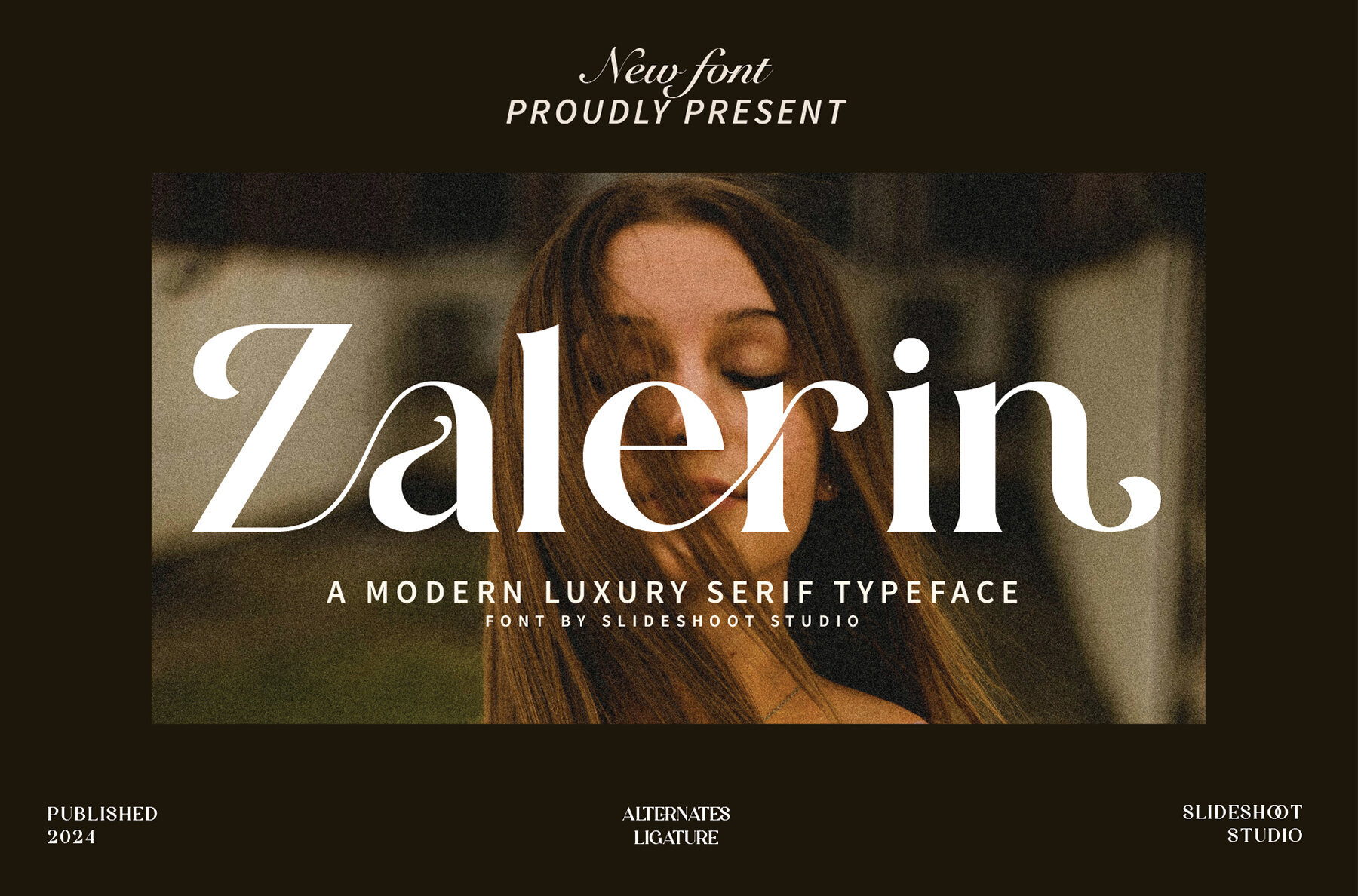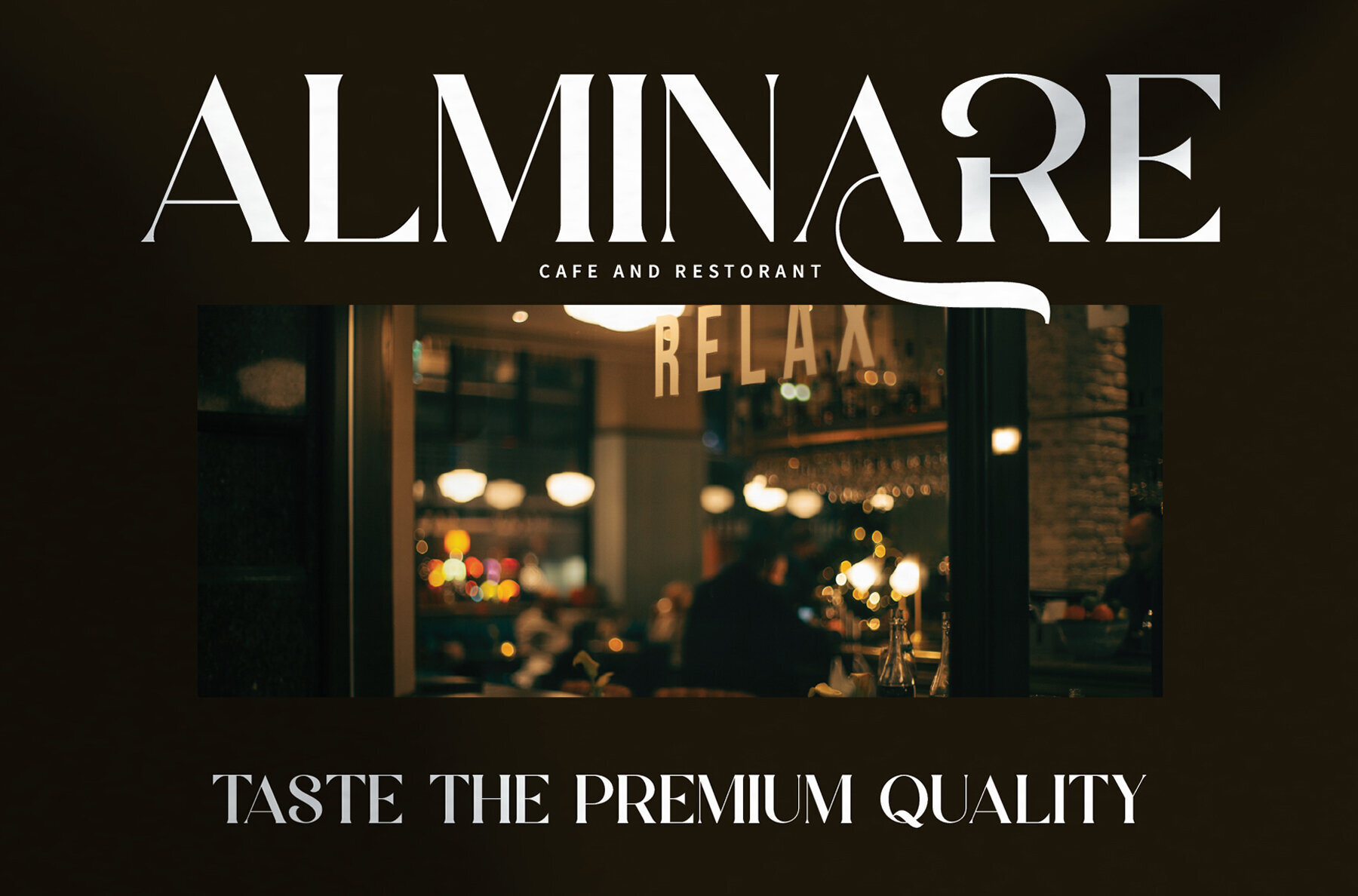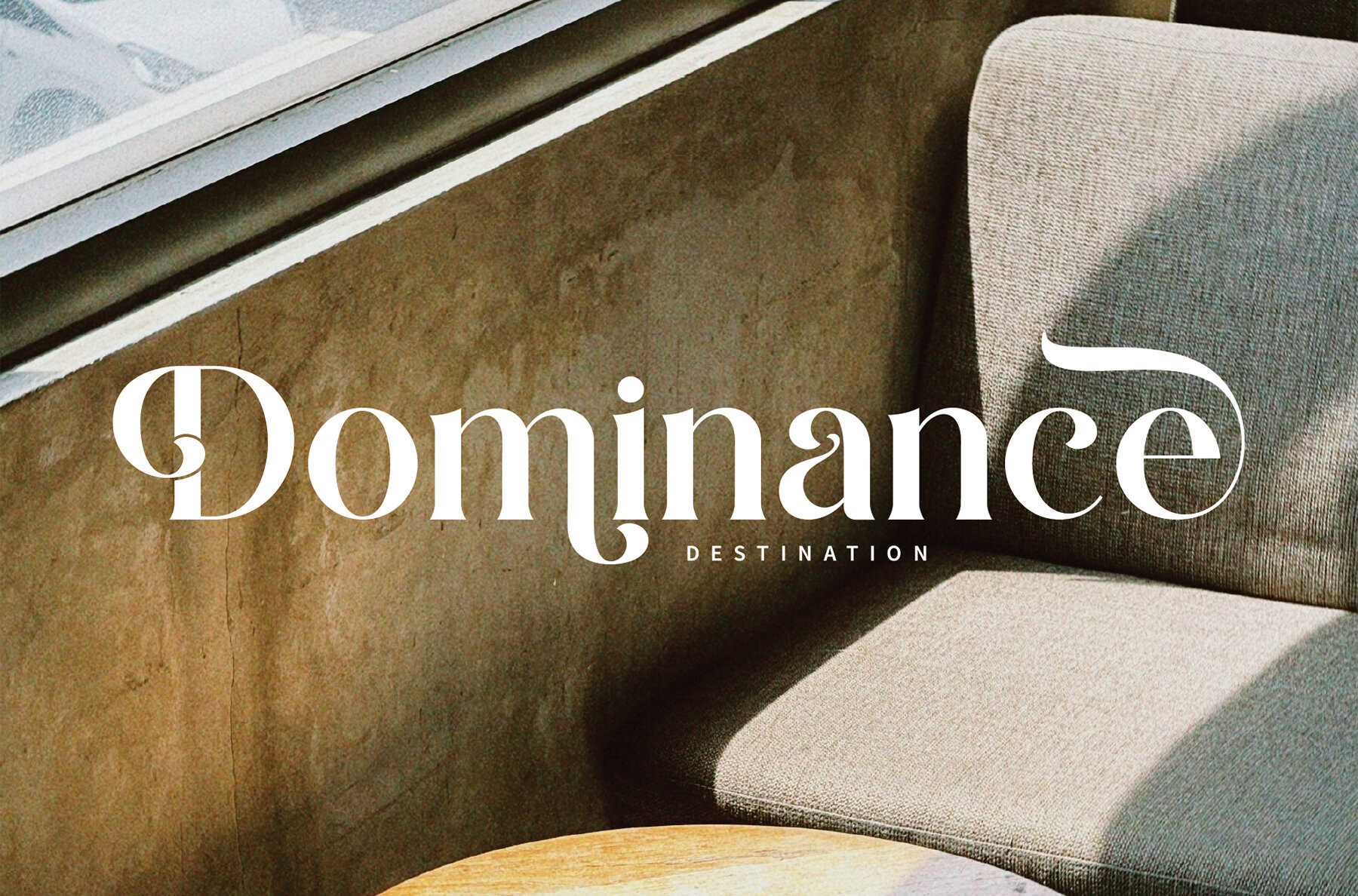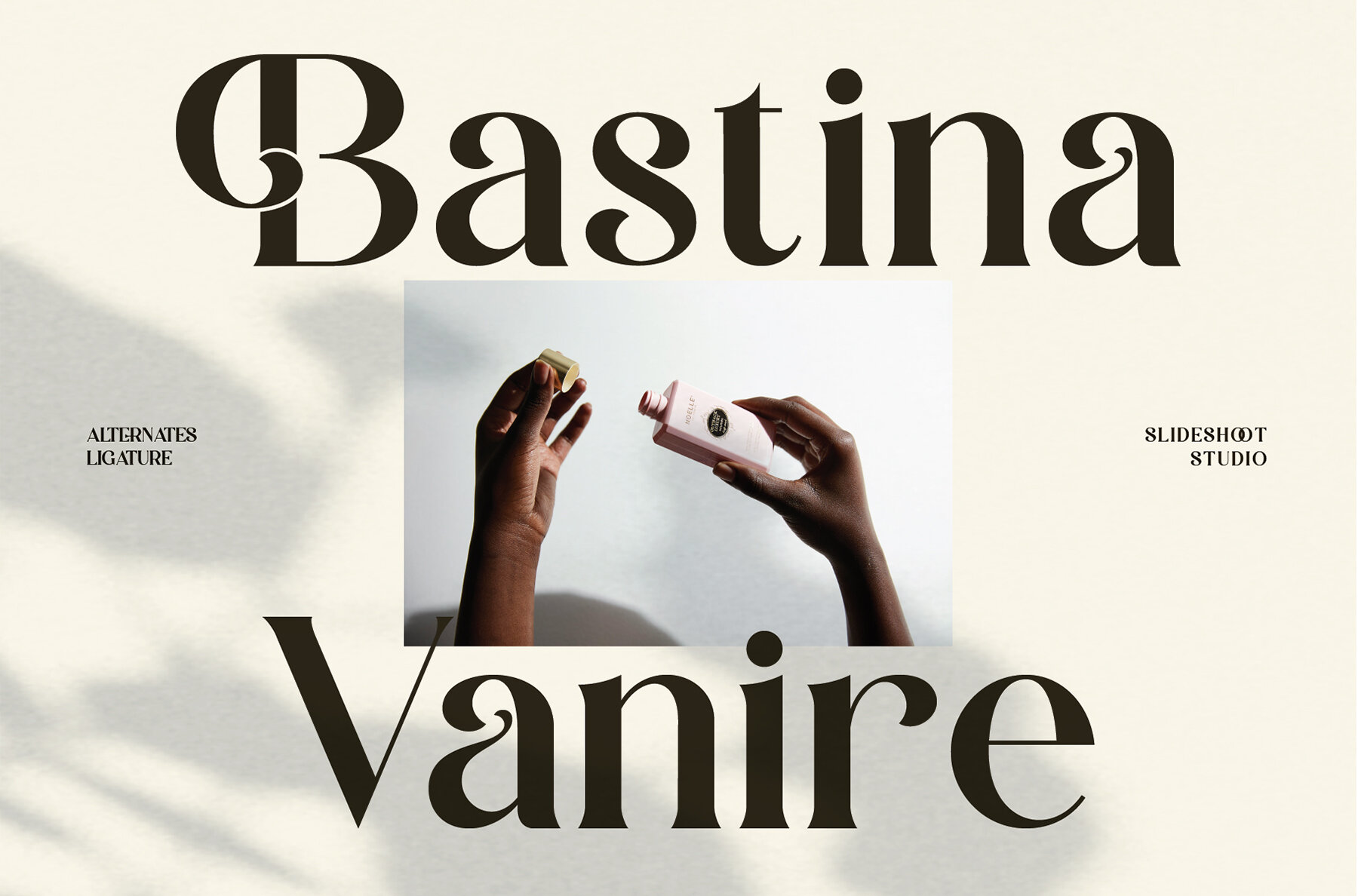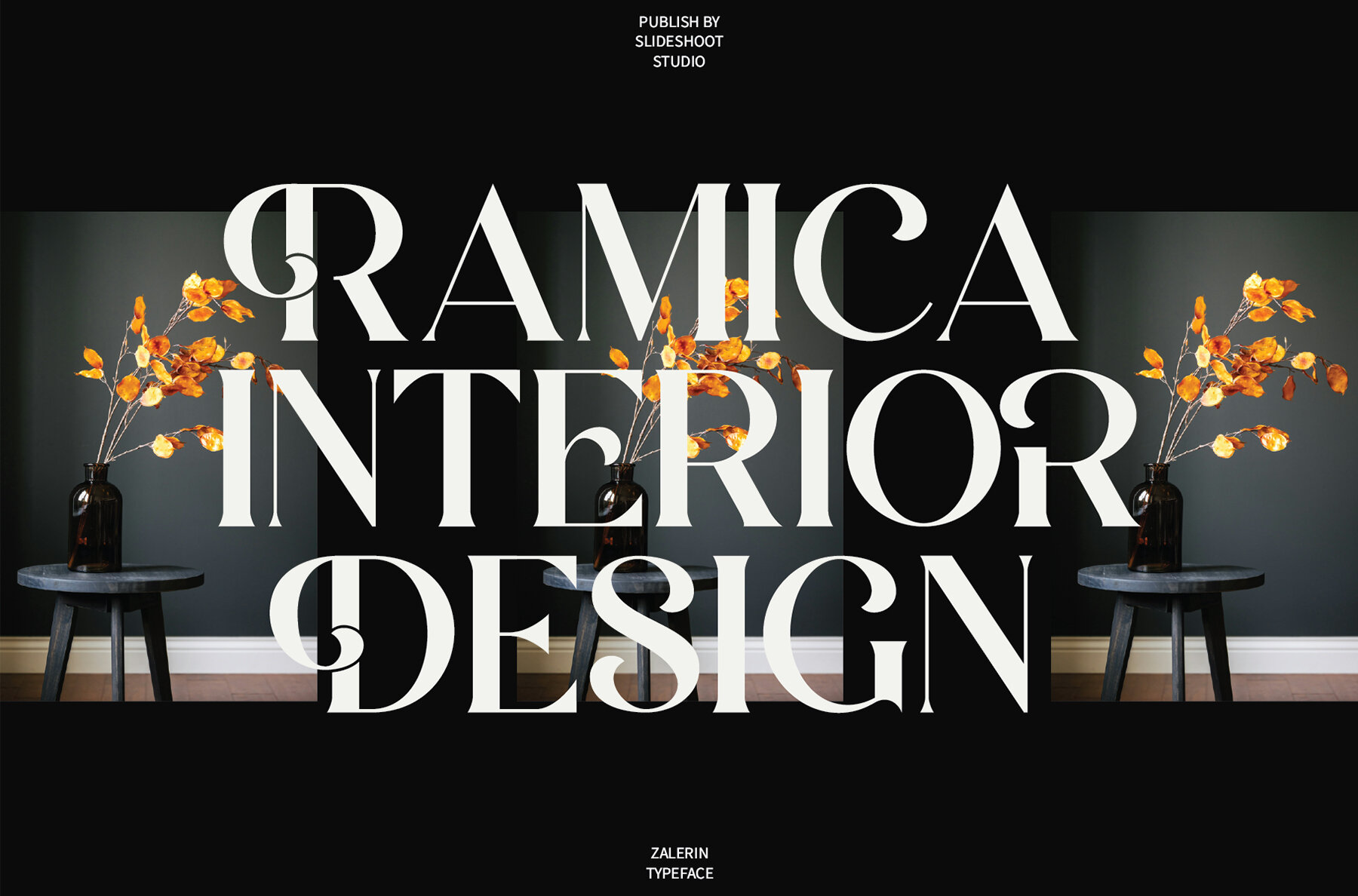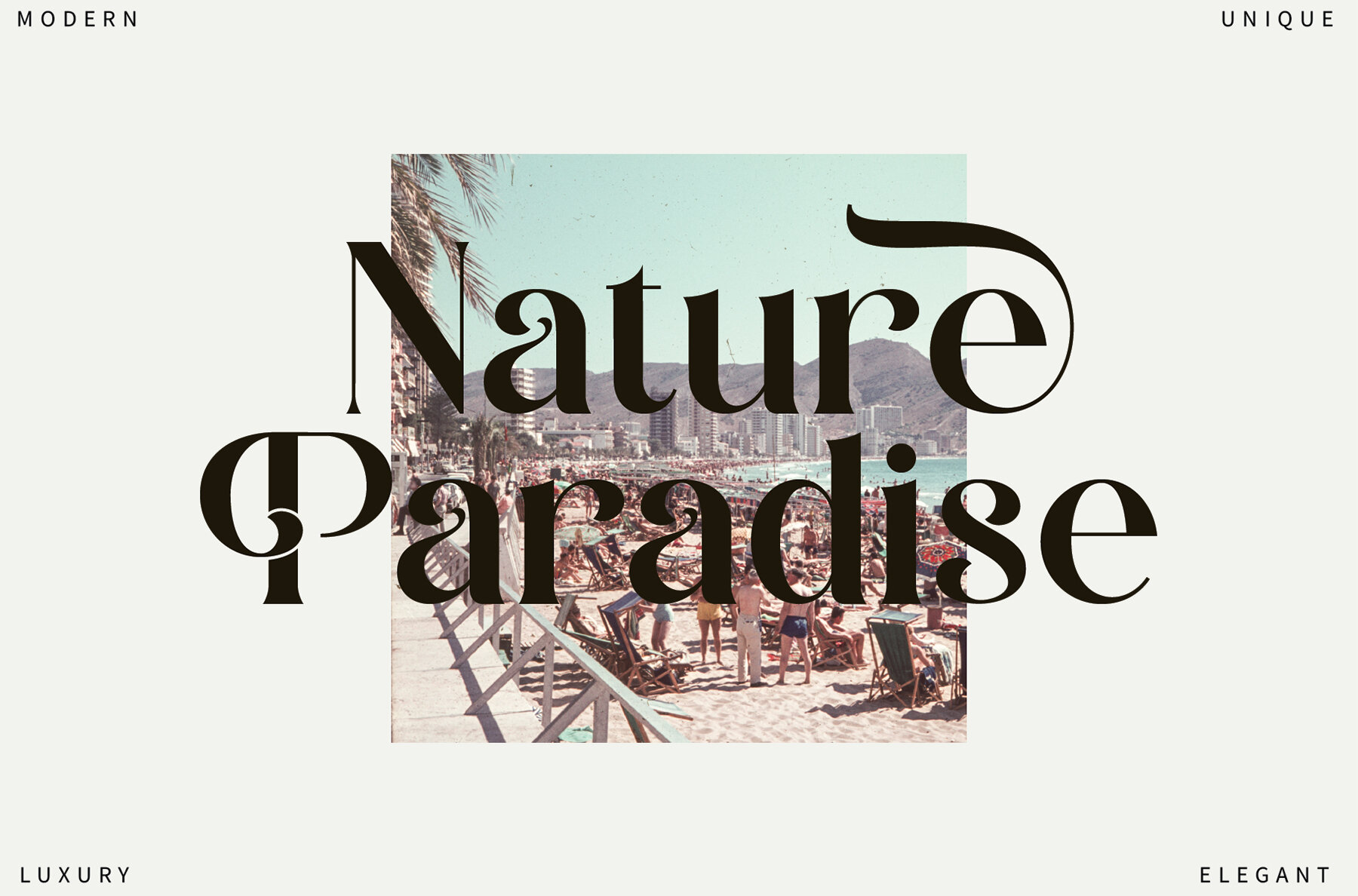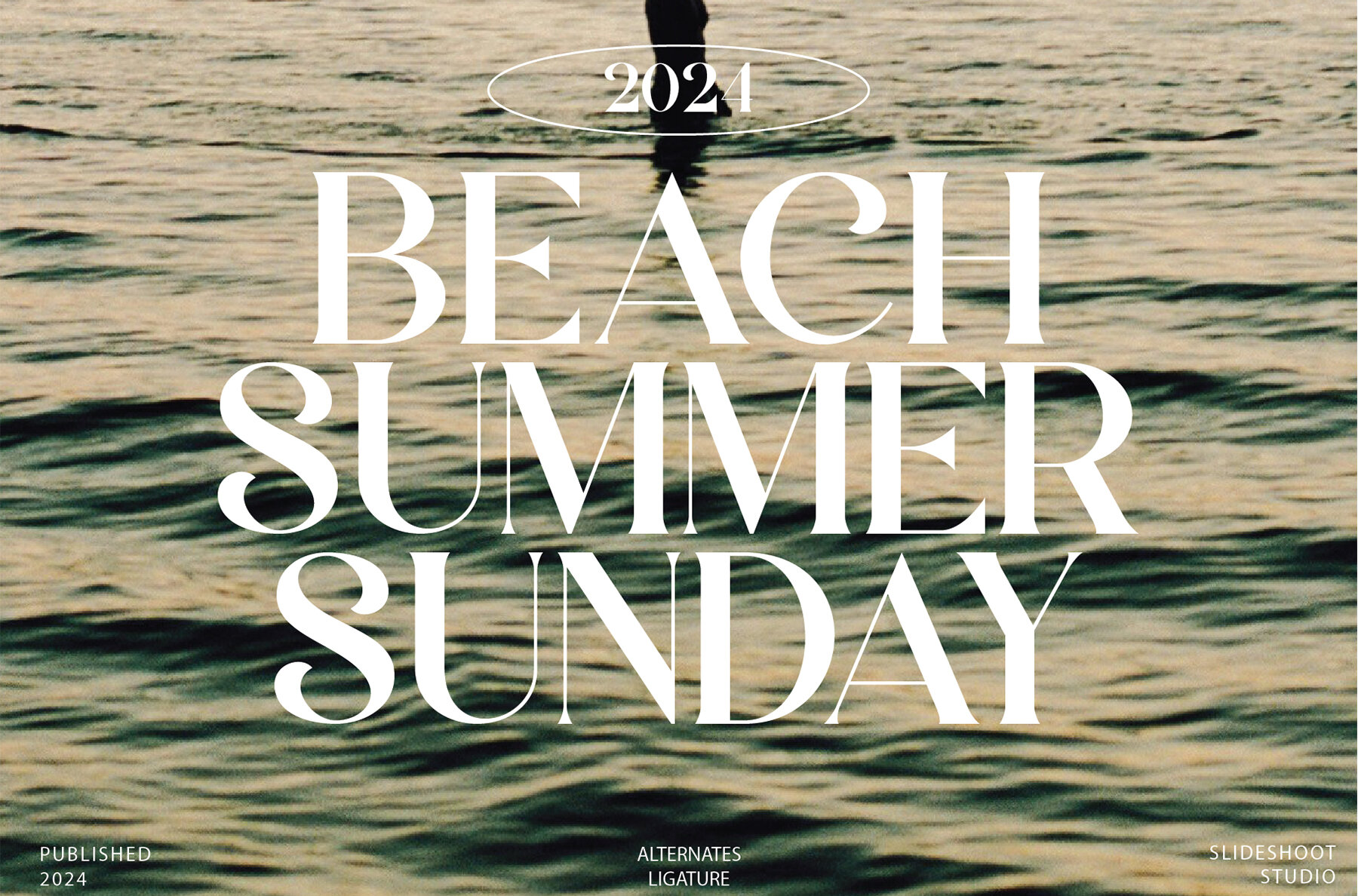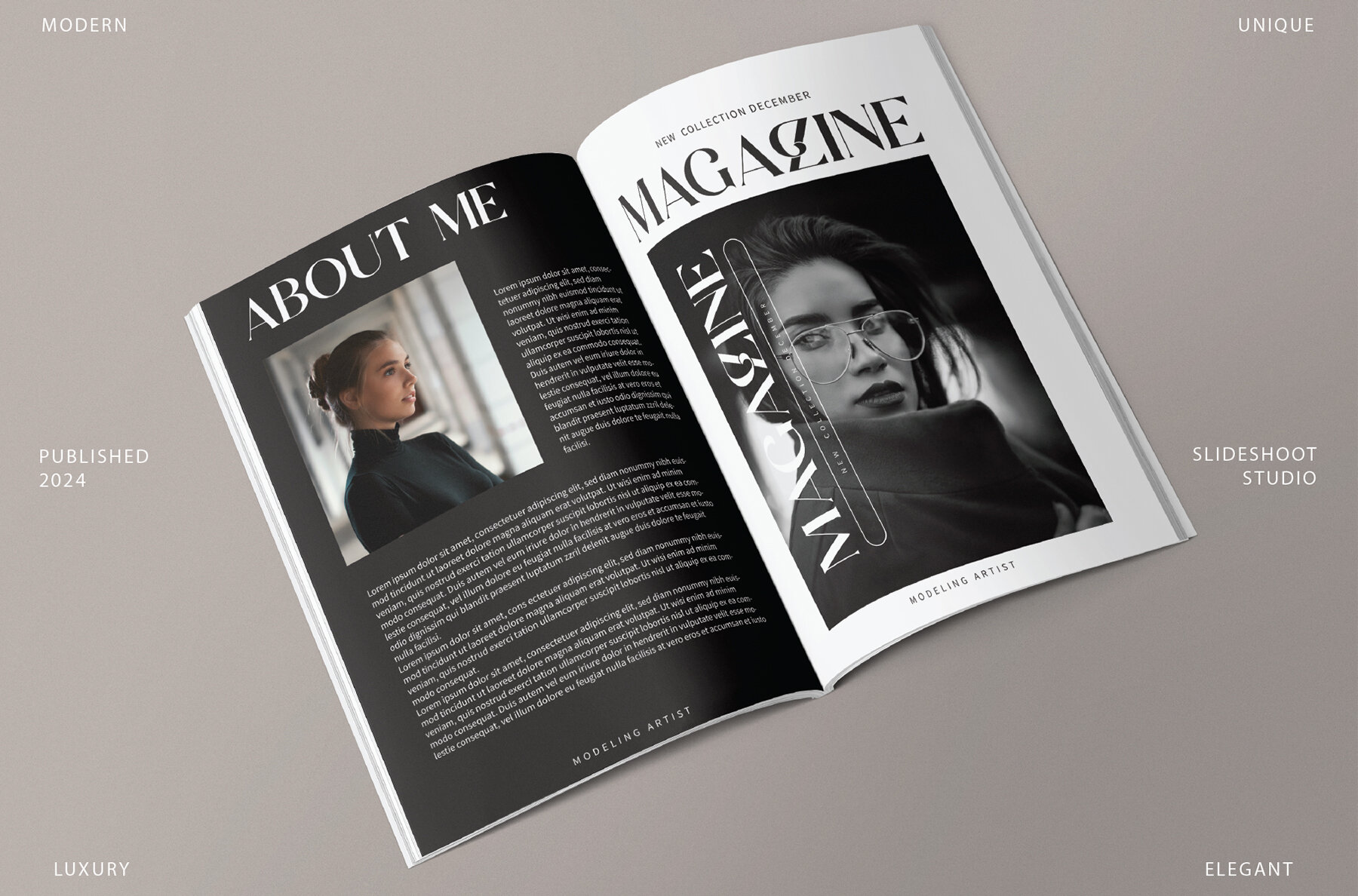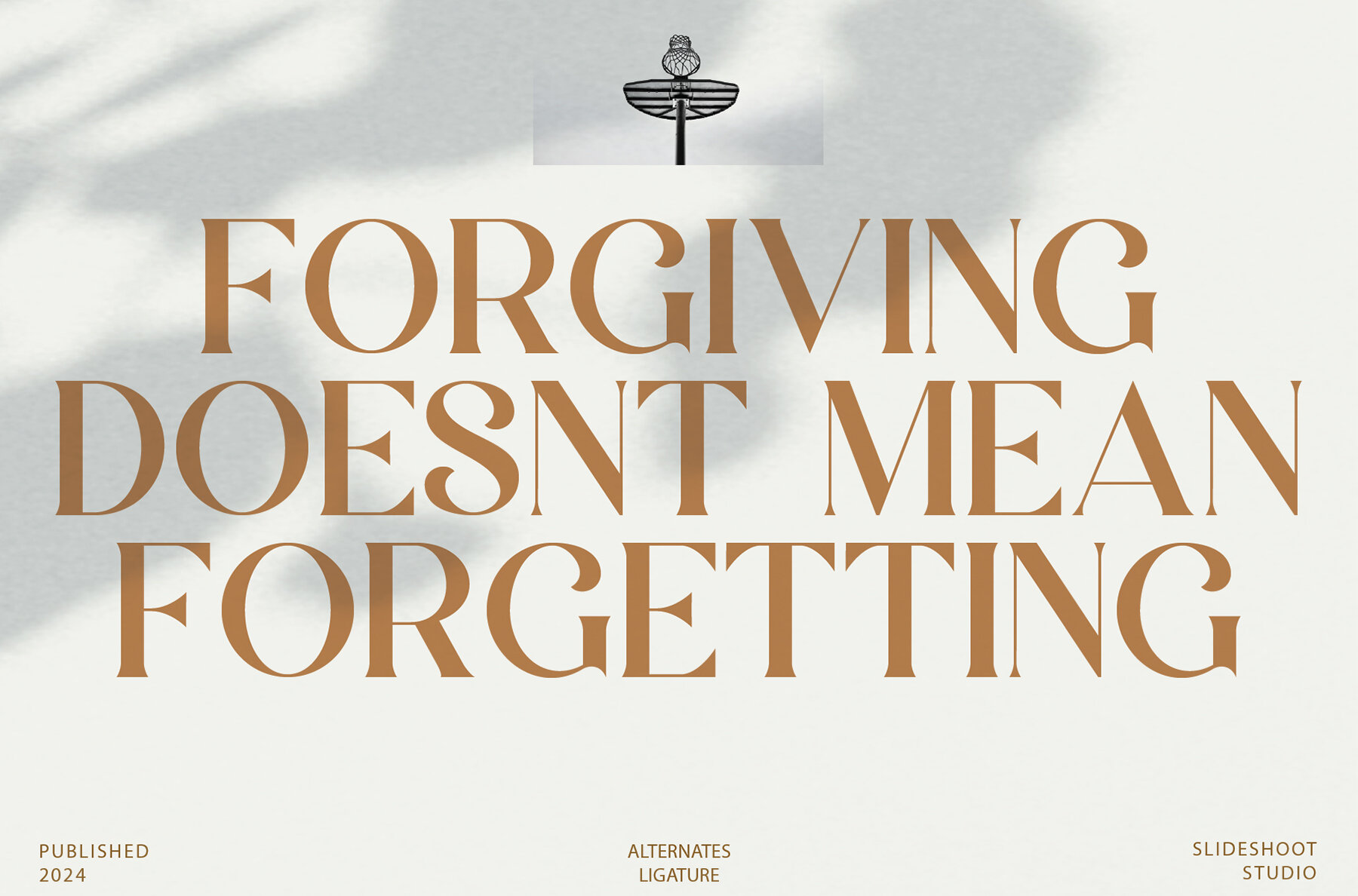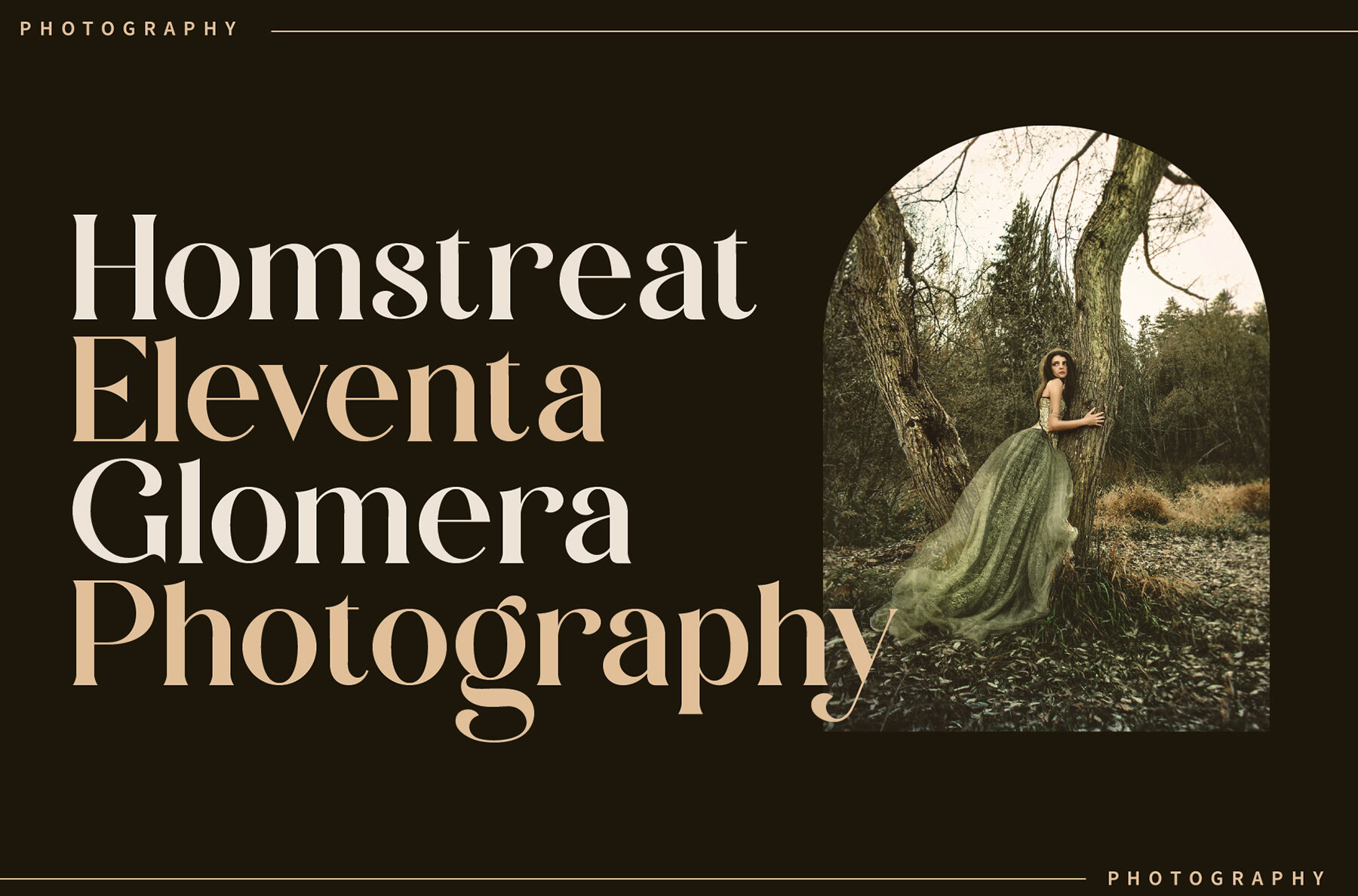
Zalerin Font
Zalerin Regular
Zalerin Serif is a sophisticated and modern typeface ideal for a wide range of design applications. This elegant serif font showcases a beautifully crafted character set, making it perfect for branding and logo designs. Its versatility extends to invitation cards, business cards, book titles, and even movie titles, infusing each with a sense of contemporary flair.
This smooth serif font stands out with its stylish alternates and ligatures, adding a refined touch to any creative project. Whether you're designing a brand name or enhancing a graphic project, Zalerin Serif provides a timeless elegance that complements modern aesthetics seamlessly.